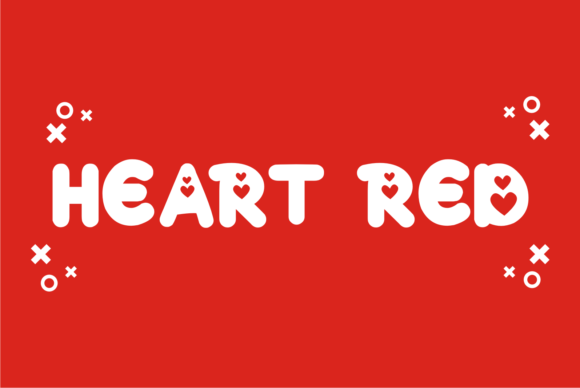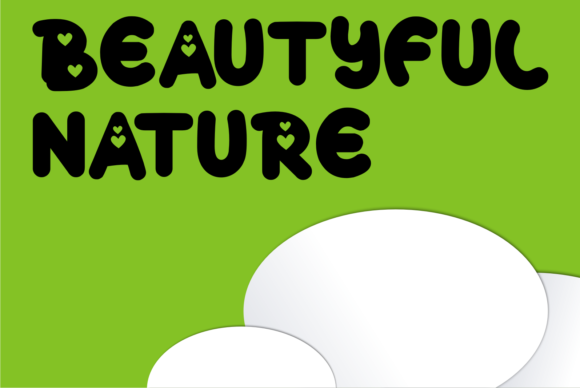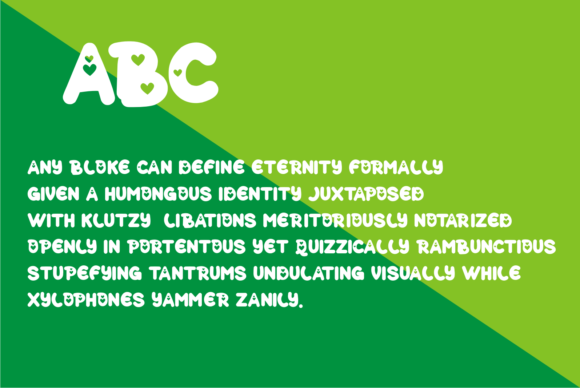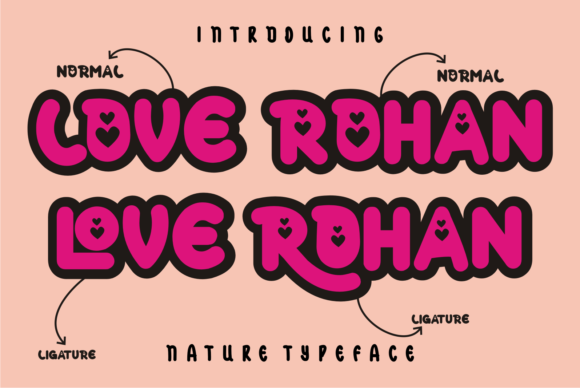
Introduction to Love Rohan Font
Love Rohan is a cool and trendy-looking display font.
This font is great for logos, badges, clothing, posters, and other projects that need to stand out from the crowd Fall in love with it and bring your designs to the highest level.
Key Features of Love Rohan Font
Why Choose Love Rohan Font?
Love Rohan Font offers exceptional quality and versatility, making it a valuable addition to your design toolkit. Whether you’re creating for personal projects or commercial use, Love Rohan Font delivers professional results.